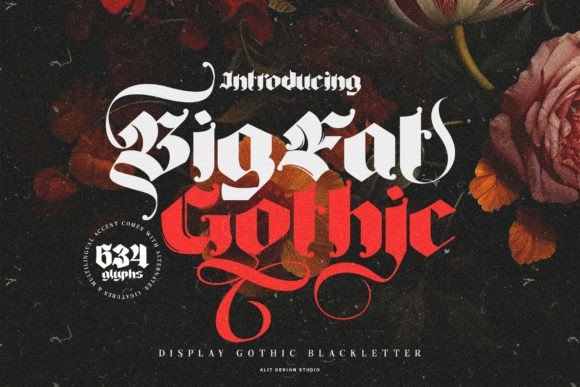
When a Design Calls for Drama
Have you ever been working on a project, and suddenly, you know exactly what it needs – something bold, something eye-catching, something that demands attention? That’s where Big Fat Gothic Font comes in – a game-changing font that’s designed to make your text stand out in a crowded space.
This Blackletter font is not just a pretty face; it’s a powerful tool that’s perfect for titles, headlines, and branding materials. With its thick strokes and intricate detailing, Big Fat Gothic Font exudes confidence and strength, making it a valuable addition to any designer’s toolkit. Whether you’re creating a logo, poster, or website, this font provides the flexibility you need to bring your vision to life.
Big Fat Gothic Font Key Features
- Font Style: A bold, gothic-inspired font with thick lines and a dramatic feel.
- Unique Characteristics: Features a distinctive, ornate design with intricate details, adding a touch of elegance and sophistication to any text.
Big Fat Gothic Font Review
I must say, I was initially drawn to Big Fat Gothic Font’s bold and eye-catching design. ✨ The font’s heavy lines and ornate details give it a sense of grandeur that’s perfect for making a statement.
Some of the things that work well for this font include:
- ✨ Its ability to add a touch of drama and sophistication to any design.
- ✨ The font’s versatility, making it suitable for a wide range of applications, from headings to titles.
- ✨ The detailed and intricate design elements that add depth and visual interest.
However, I do have some concerns about the font’s limitations:
- ⚠️ The font may be difficult to read in smaller sizes due to its heavy lines and ornate details.
- ⚠️ It may not be the best choice for body text or large blocks of text due to its visual density.
- ⚠️ The font may not be suitable for digital applications where screen legibility is a concern.
Overall, I think Big Fat Gothic Font is a great choice for designers looking to add a touch of drama and sophistication to their designs. While it may have some limitations, its unique design elements and versatility make it a valuable addition to any font library.
The Big Fat Gothic Font is ideal for creating dramatic and attention-grabbing headlines, titles, and quotes. It’s also great for adding a touch of gothic elegance to your designs. Some common use cases include:
- Creating spooky or mysterious designs for Halloween or horror-themed projects.
- Designing gothic-inspired artwork or typography.
- Adding a touch of drama to your social media posts or blog headlines.
Alternatives to Big Fat Gothic Font
1. Impact Font
Impact is a sans-serif font that is similar to Big Fat Gothic Font in terms of its bold and condensed design. It is ideal for use in headings, titles, and other areas where a strong visual impact is desired. Impact is more condensed than Big Fat Gothic Font, making it suitable for use in narrow spaces.
2. Museo Sans Font
Museo Sans is a sans-serif font that offers a more modern and sleek alternative to Big Fat Gothic Font. It has a similar feel to Big Fat Gothic Font but with a more contemporary design. Museo Sans is suitable for use in a wide range of applications, from headings to body text.
3. Arial Black Font
Arial Black is a sans-serif font that is similar to Big Fat Gothic Font in terms of its bold and condensed design. However, it has a more refined and polished look, making it suitable for use in a wide range of applications, from headings to body text. Arial Black is a more versatile font than Big Fat Gothic Font, making it a good alternative for designers who want a bold font without the gothic feel.